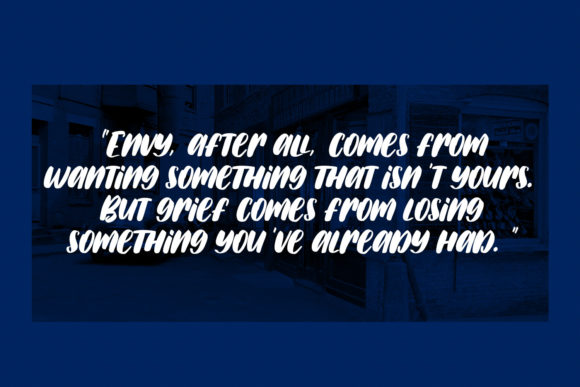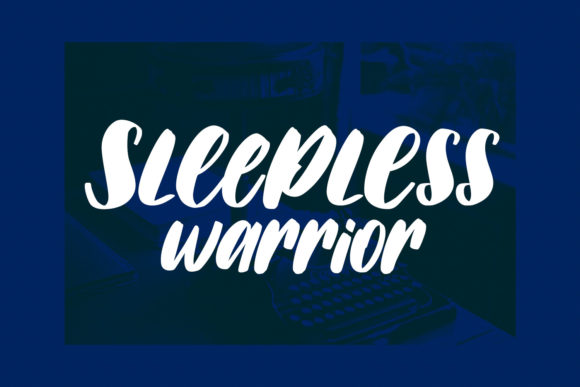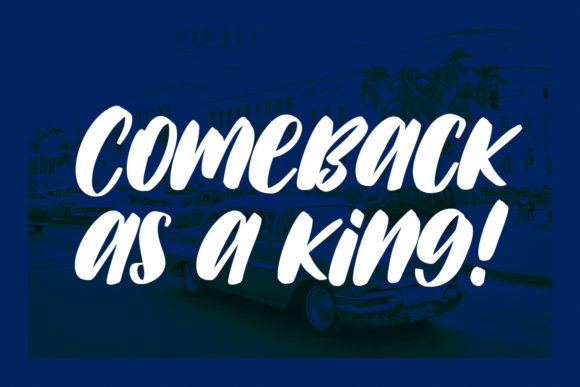
Introduction to Lillstripe Font
Lillstripe is a cool and trendy display font.
It will elevate a wide range of crafting ideas, from cards, to branding, labels and much more Add it confidently to your favorite creations and let yourself be amazed by the outcome generated.
Key Features of Lillstripe Font